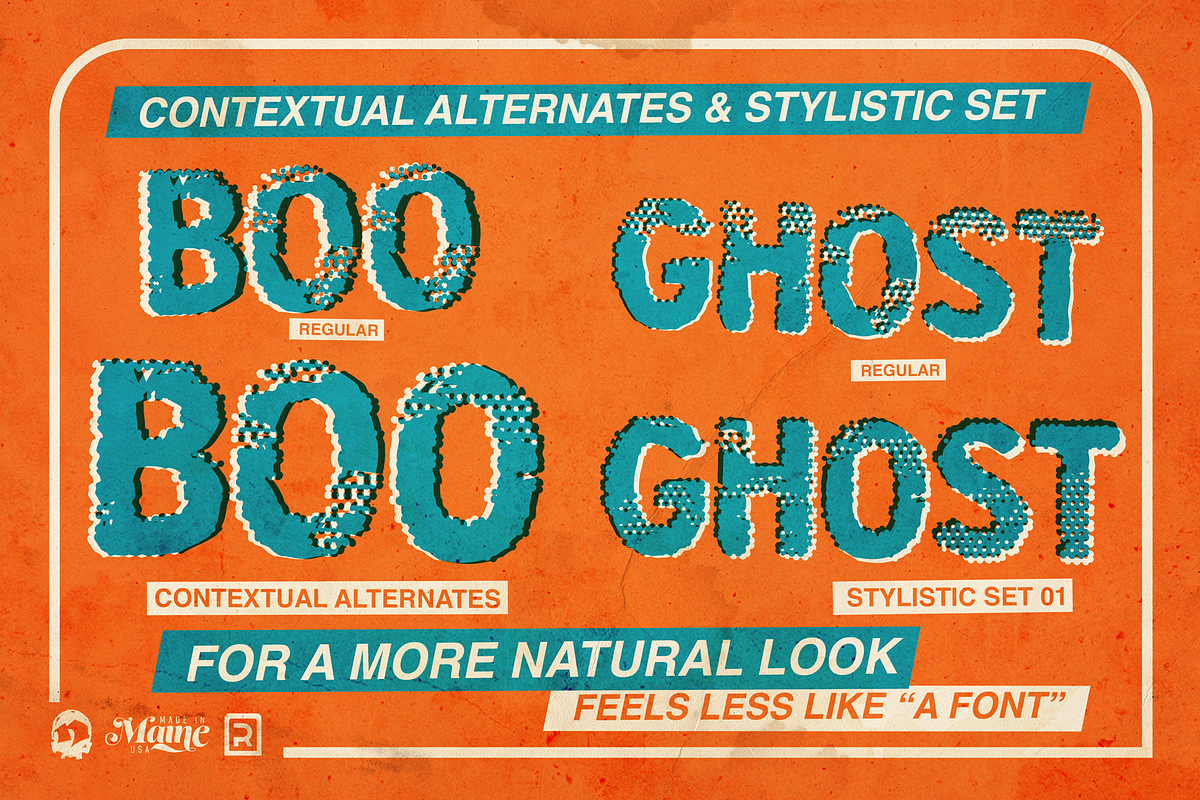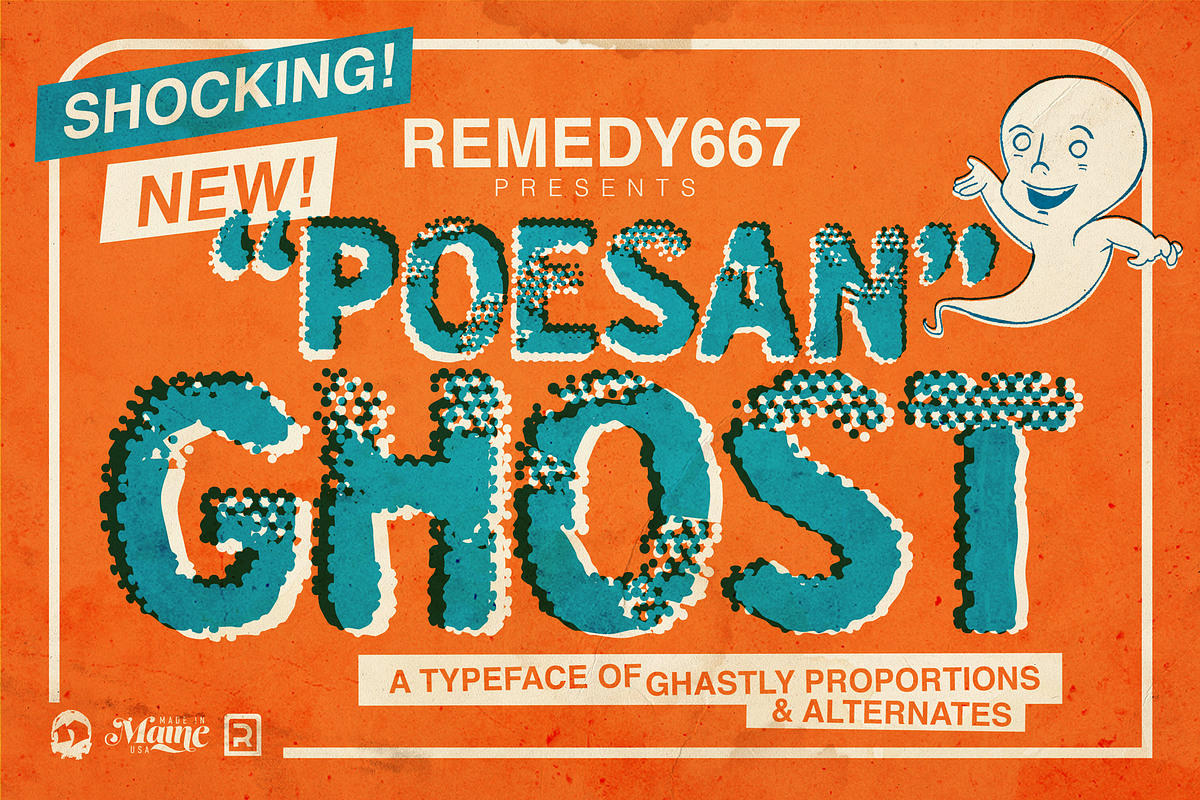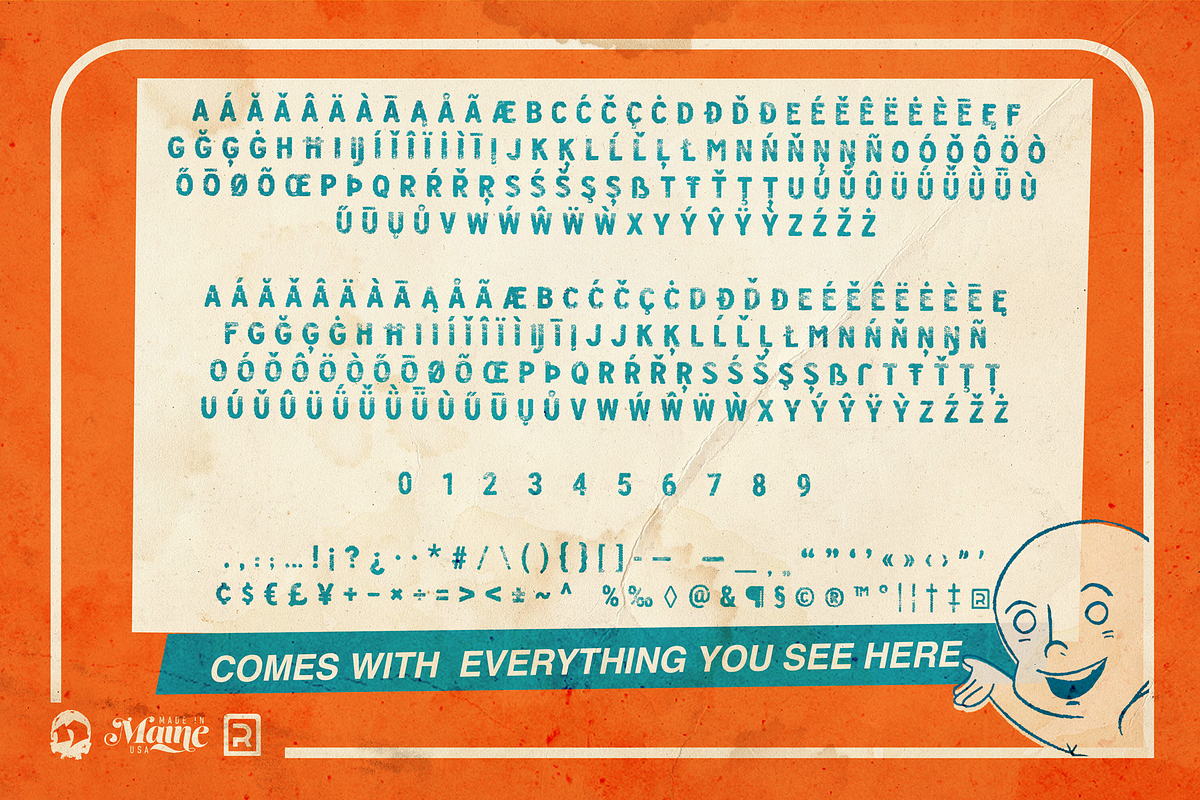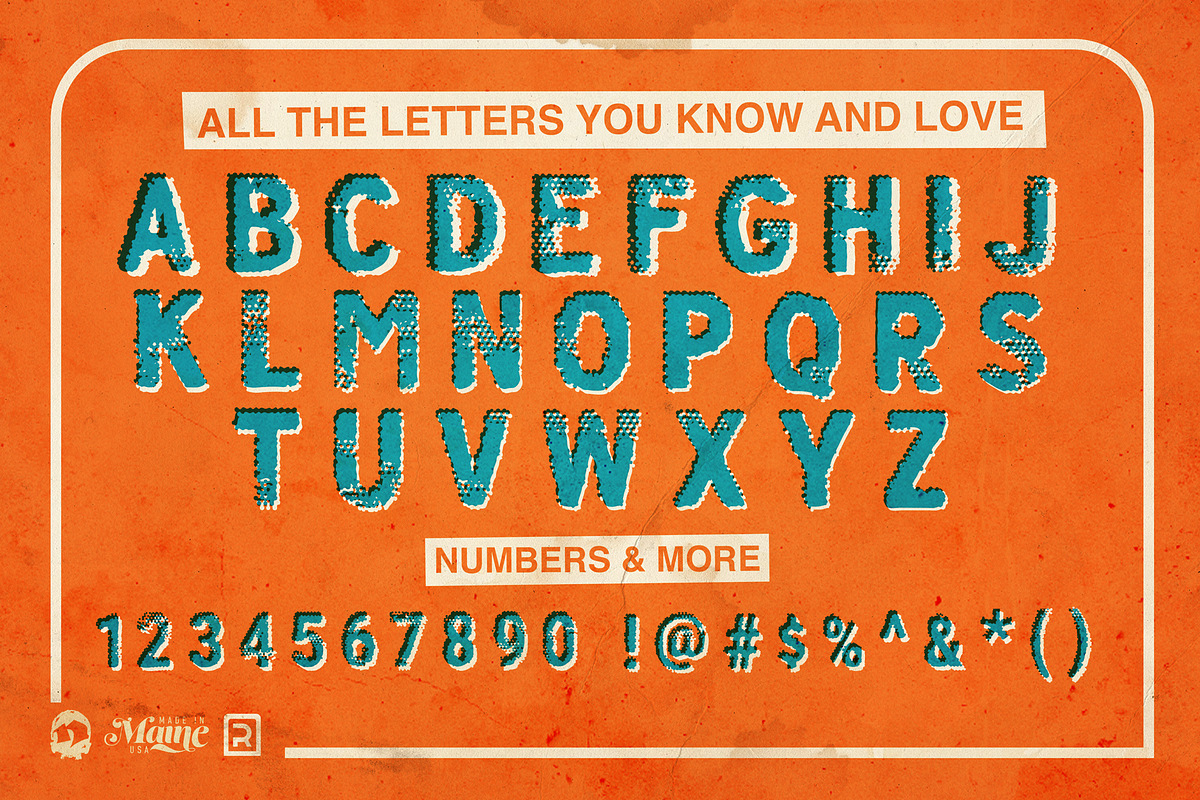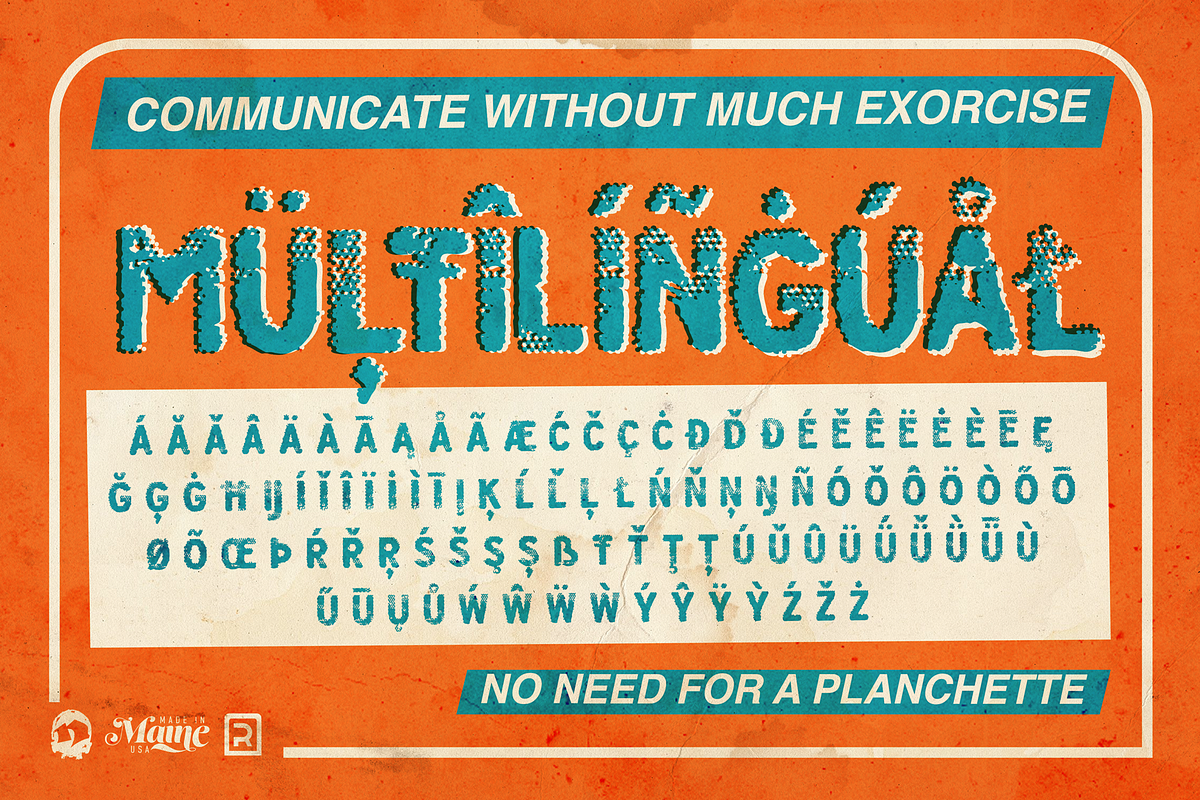
Poesan Ghost
Poesan Ghost is a complex ethereal typeface variant created using a variety of methods you can read about here. When used at a small point size it appears slightly scratched or weathered. While as a headline it displays pockets of halftone beautifully woven into organic feeling decomposed letter forms.
Each letter contains a variant accessible through contextual alternates or stylistic set Opentype features.
Poesan Ghost is perfect for breathing new life into those old "stamp font" projects that may require some updating.